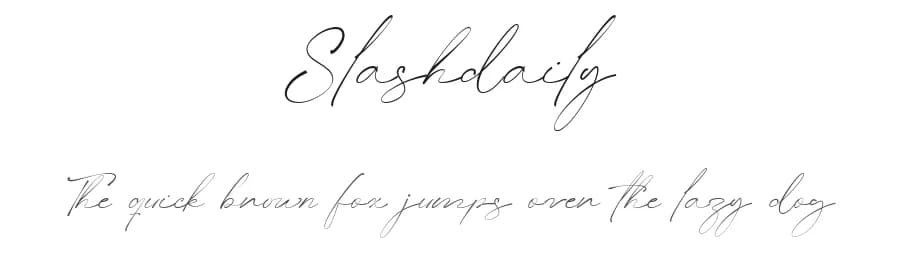
About Slashdaily Font
Slashdaily Font is a script font that shines as a display or heading face. Pair it with a clean sans-serif or serif font for body text β the contrast creates a clear hierarchy while the two styles stay balanced and easy to read.